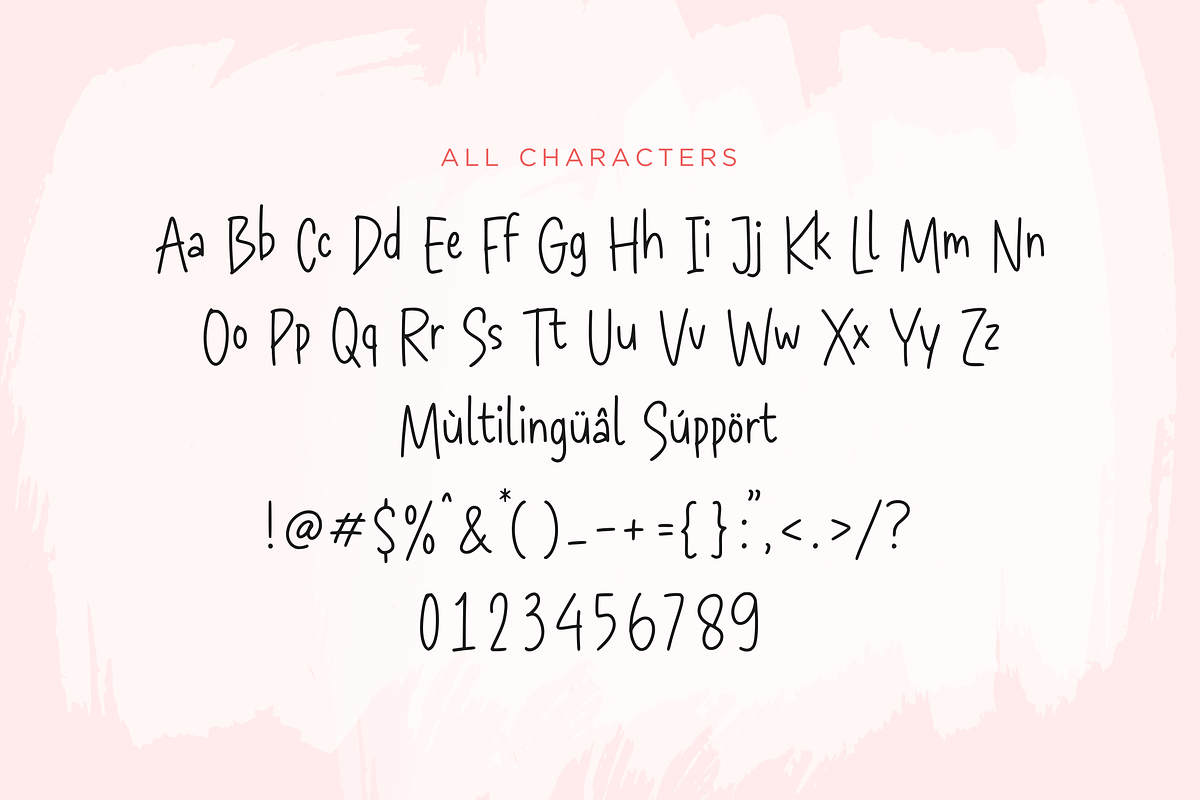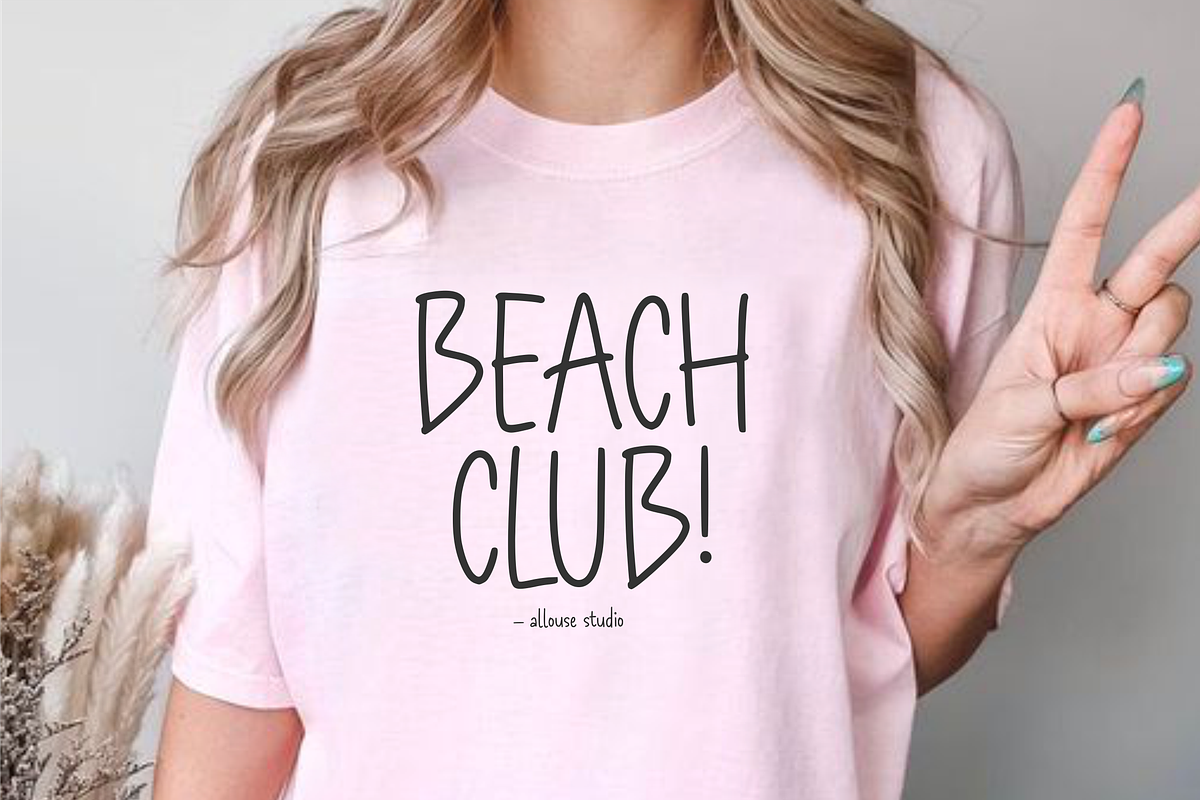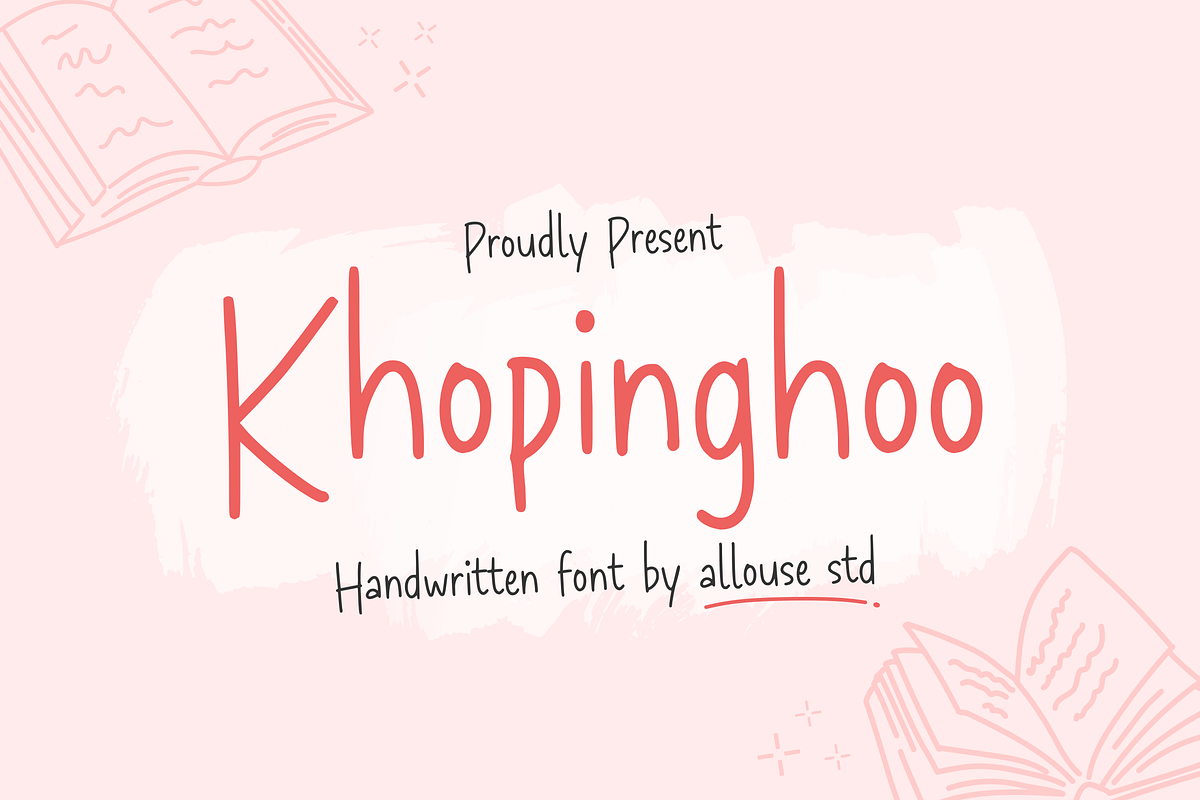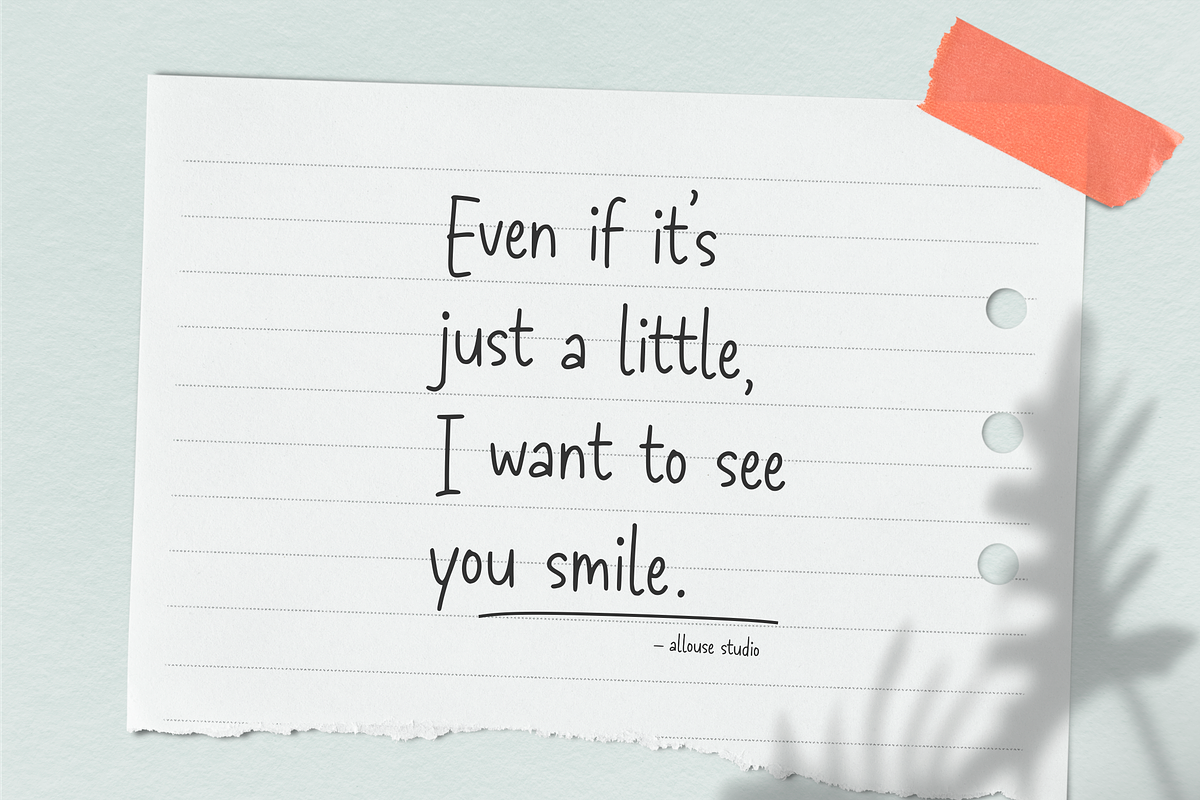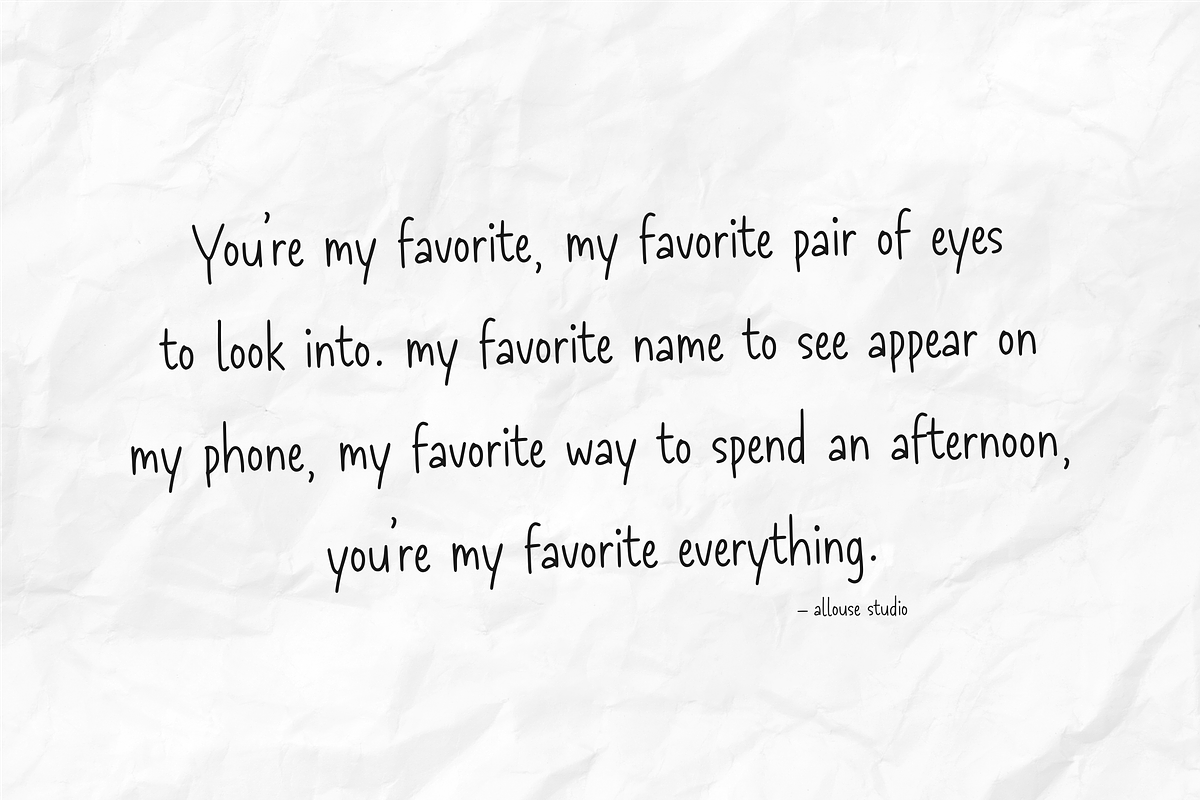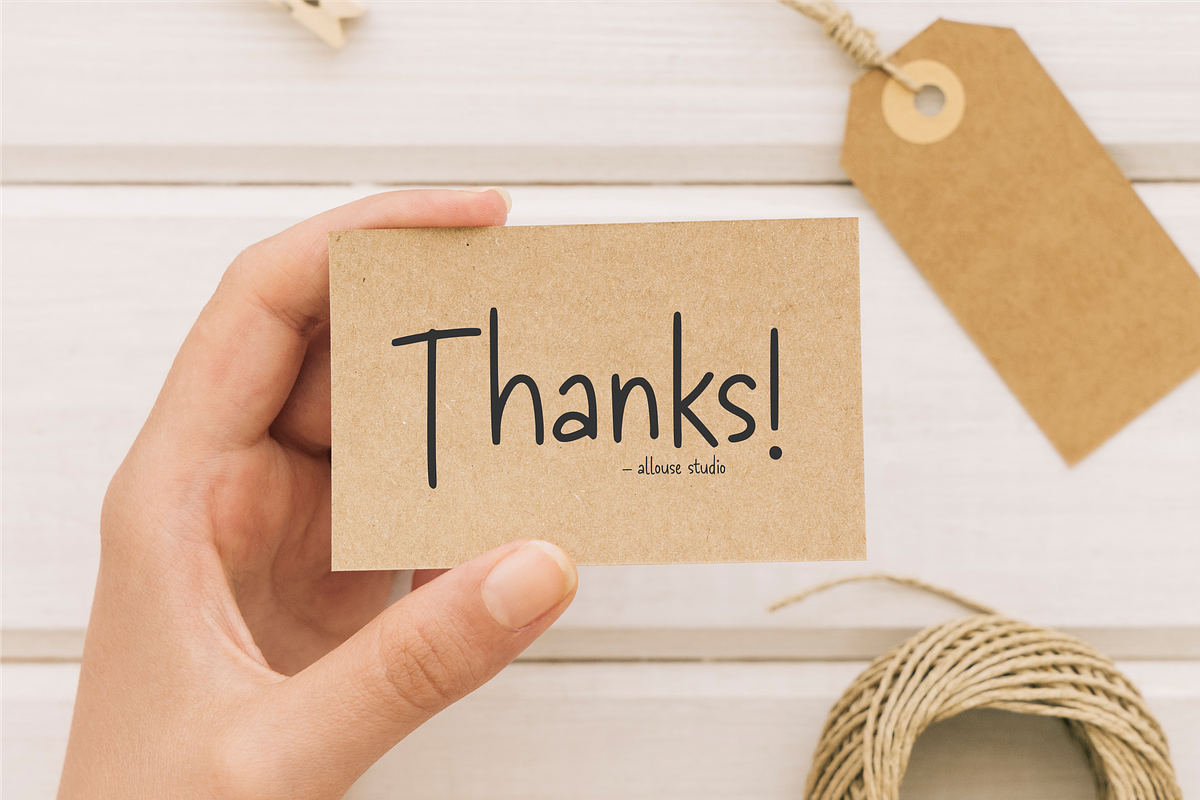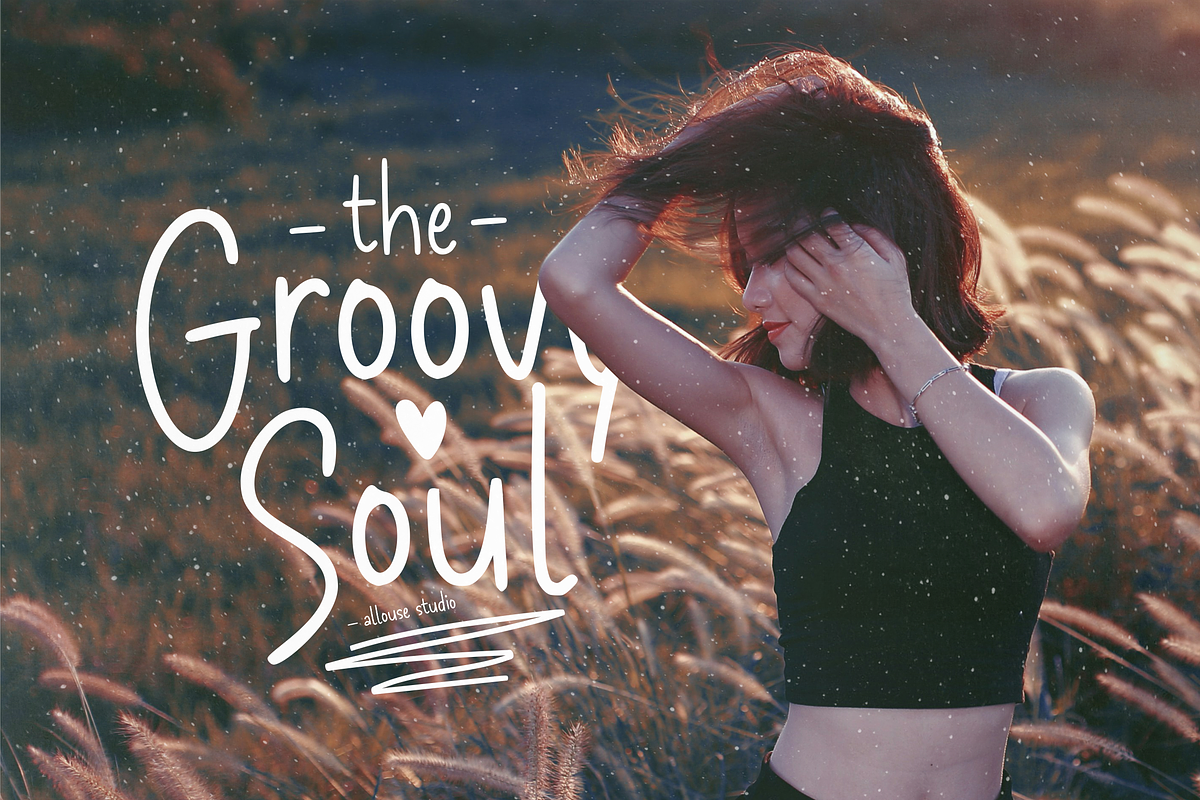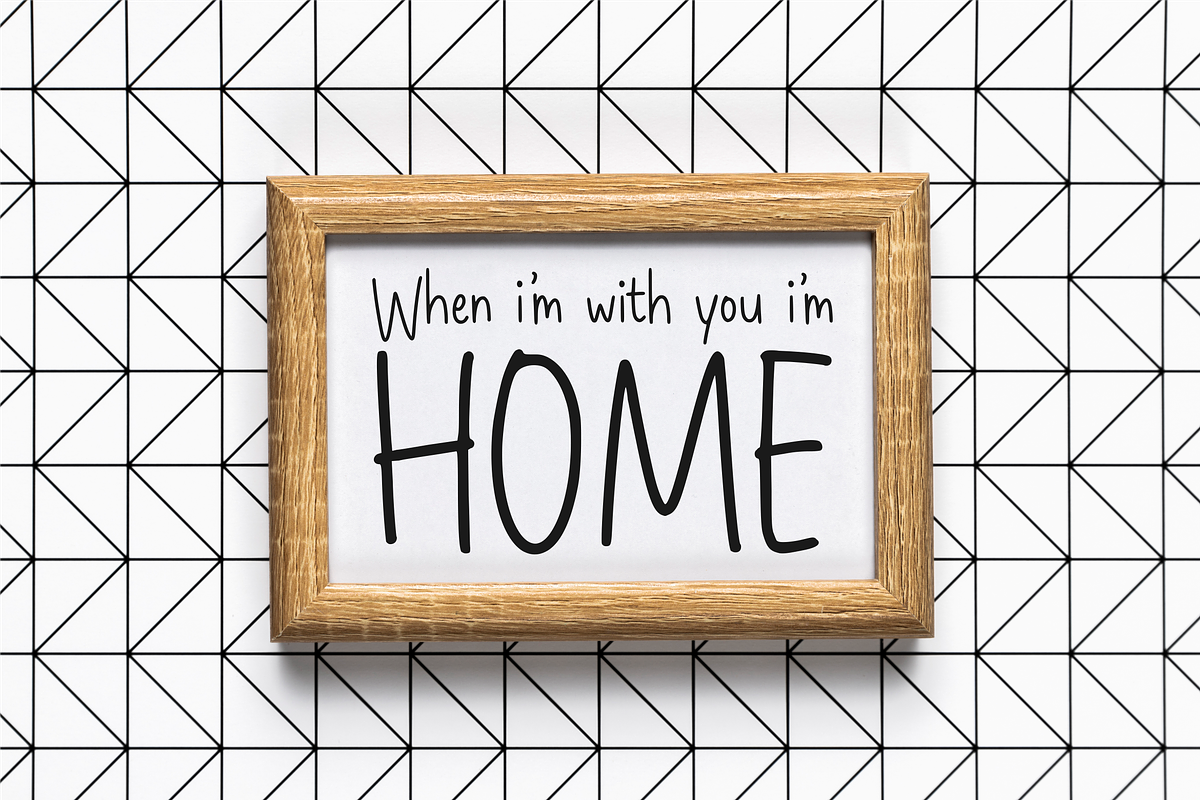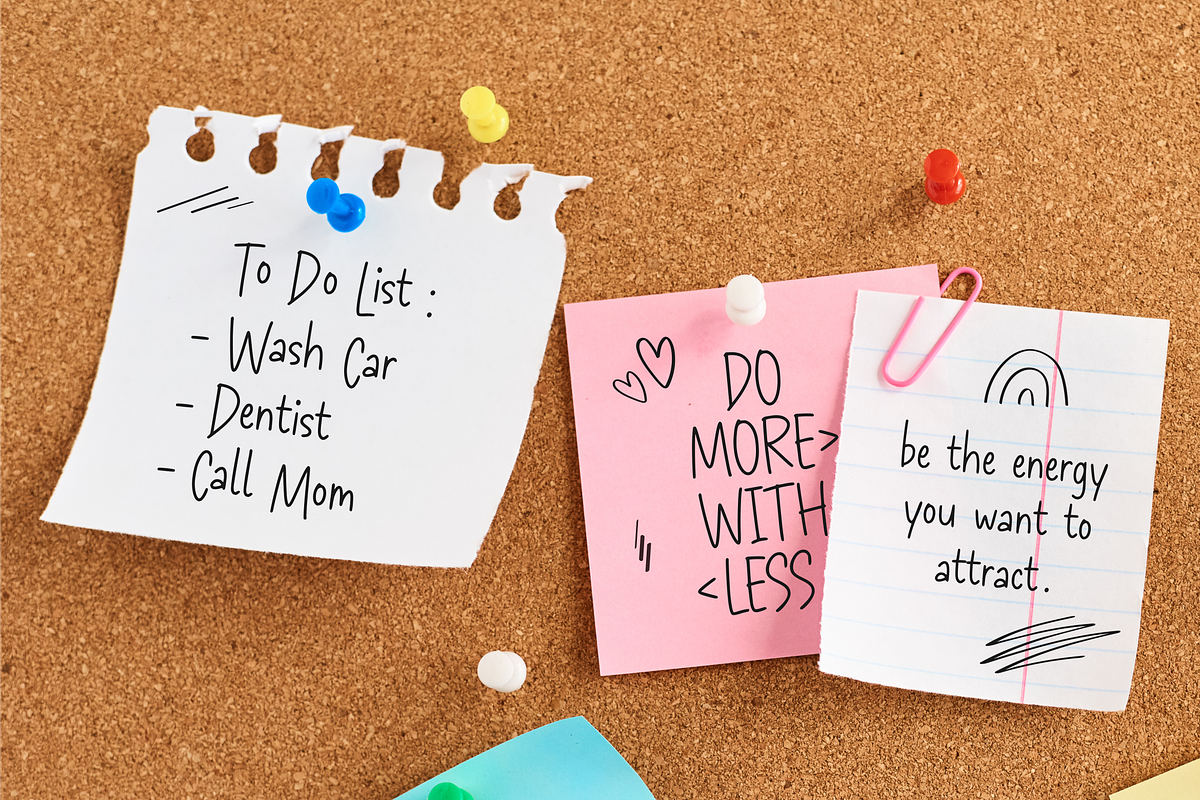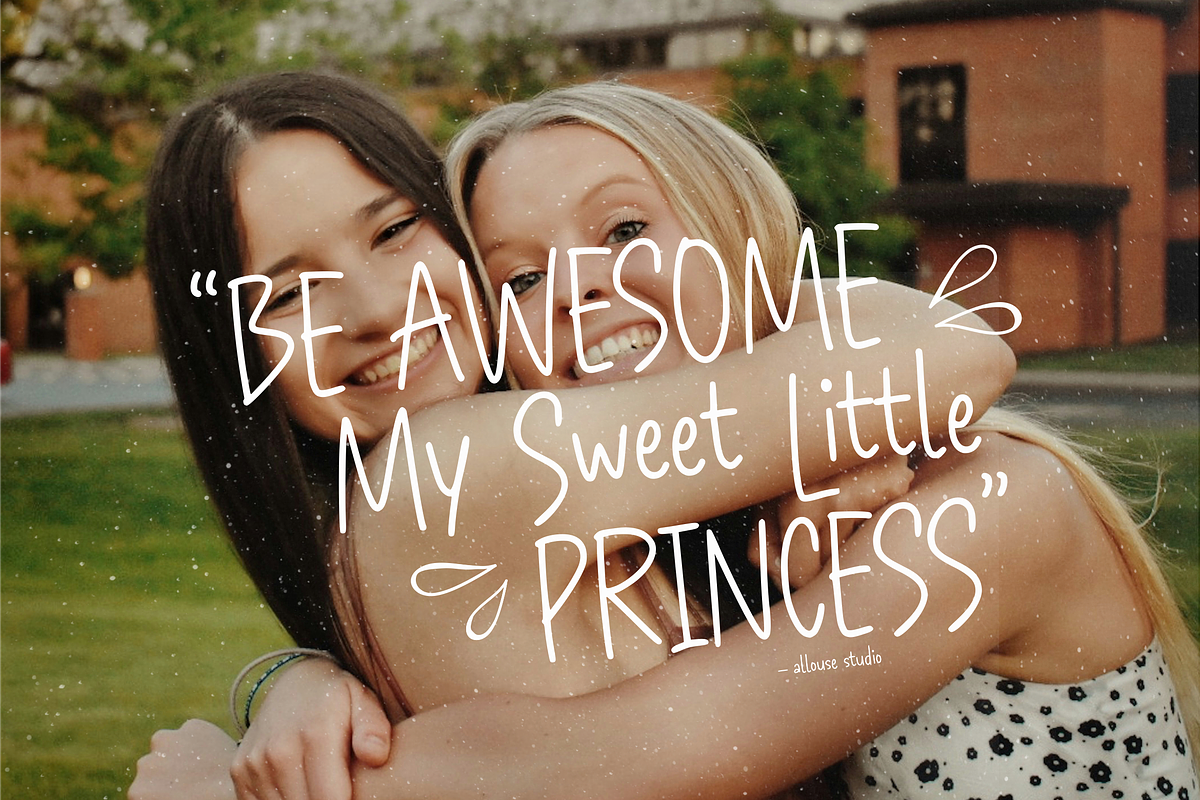
Khopinghoo
Khopinghoo A Monoline Quirky Handwritten Font
Khopinghoo is perfect for any titles, product packaging, branding project, megazine, social media, wedding, or just used to express words above the background.
Khopinghoo also come with multilingual support.